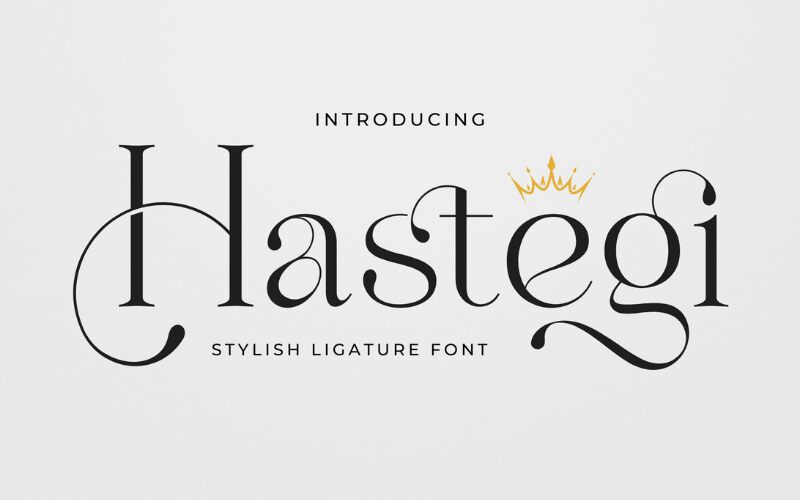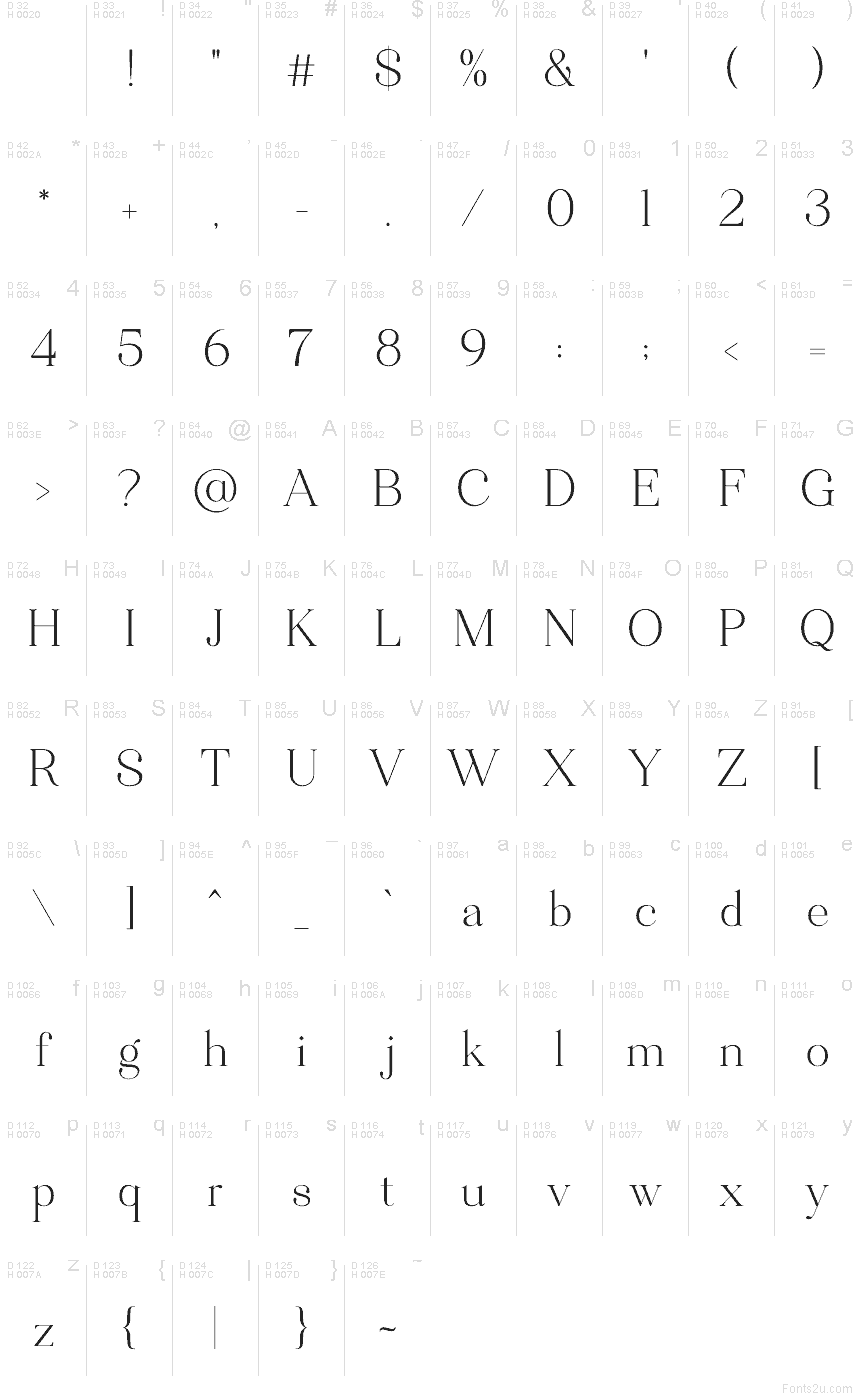
Hastegi
Hastegi font by Sronstudio is a free serif typeface that feels like it’s been drawn with a fine ink pen—slim stems, generous curves, and those sculpted ball terminals that look almost jewel-like. The letters feel airy and poised, with wide spacing that lets each shape breathe, giving your layouts a sense of quiet luxury rather than loud drama.
Using Hastegi, you can push elegance in fashion branding, beauty packaging, magazine covers, wedding invitations, posters, and refined social media graphics. This free font shines in larger sizes where its delicate details stay crisp; pair it with a simple geometric sans for body text to keep the focus on Hastegi’s graceful forms.